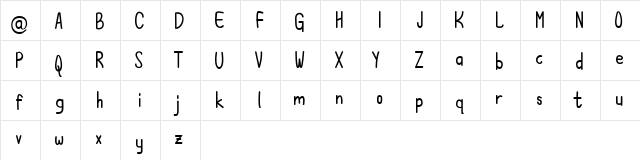
Langrish Sans Regular
Design Context for Langrish Sans Typeface
Langrish Sans offers clean, dependable letterforms without strong stylistic allegiance, making it a practical choice for designers who need flexibility.
Pro Tip: Pair Langrish Sans with a font of contrasting weight or personality to build a more expressive typographic hierarchy.